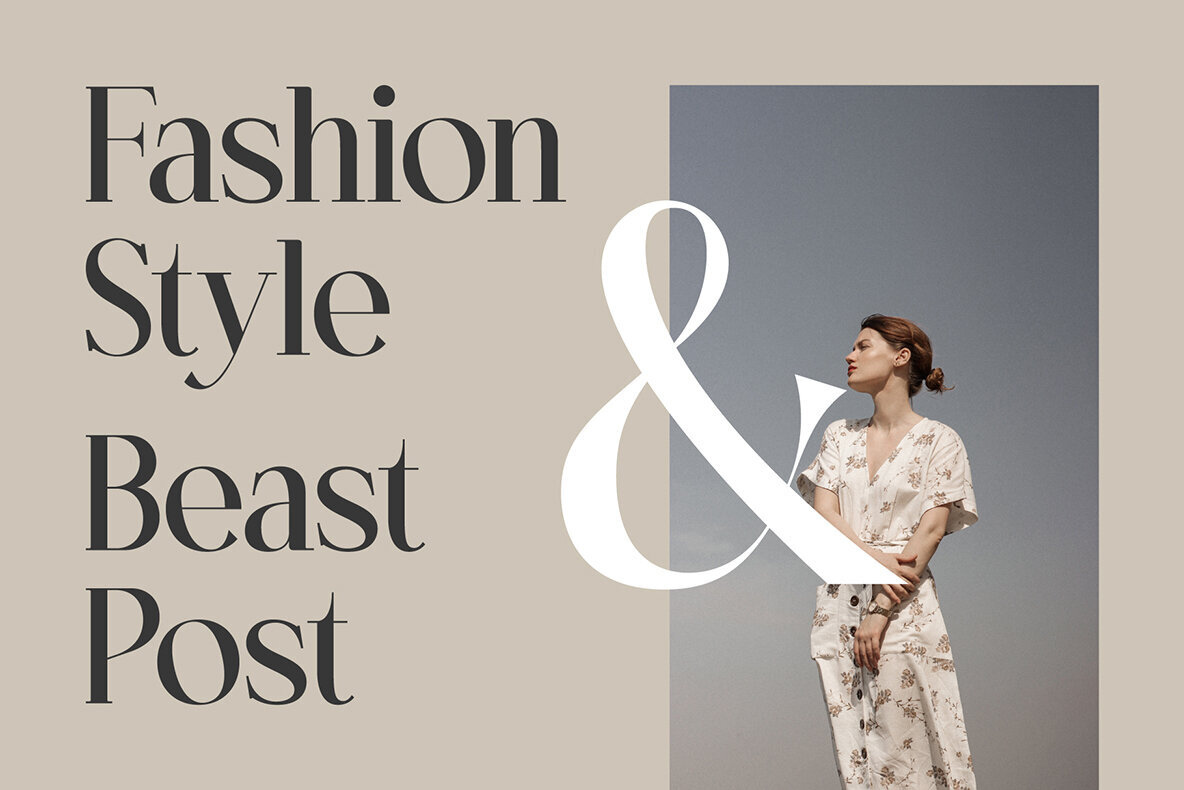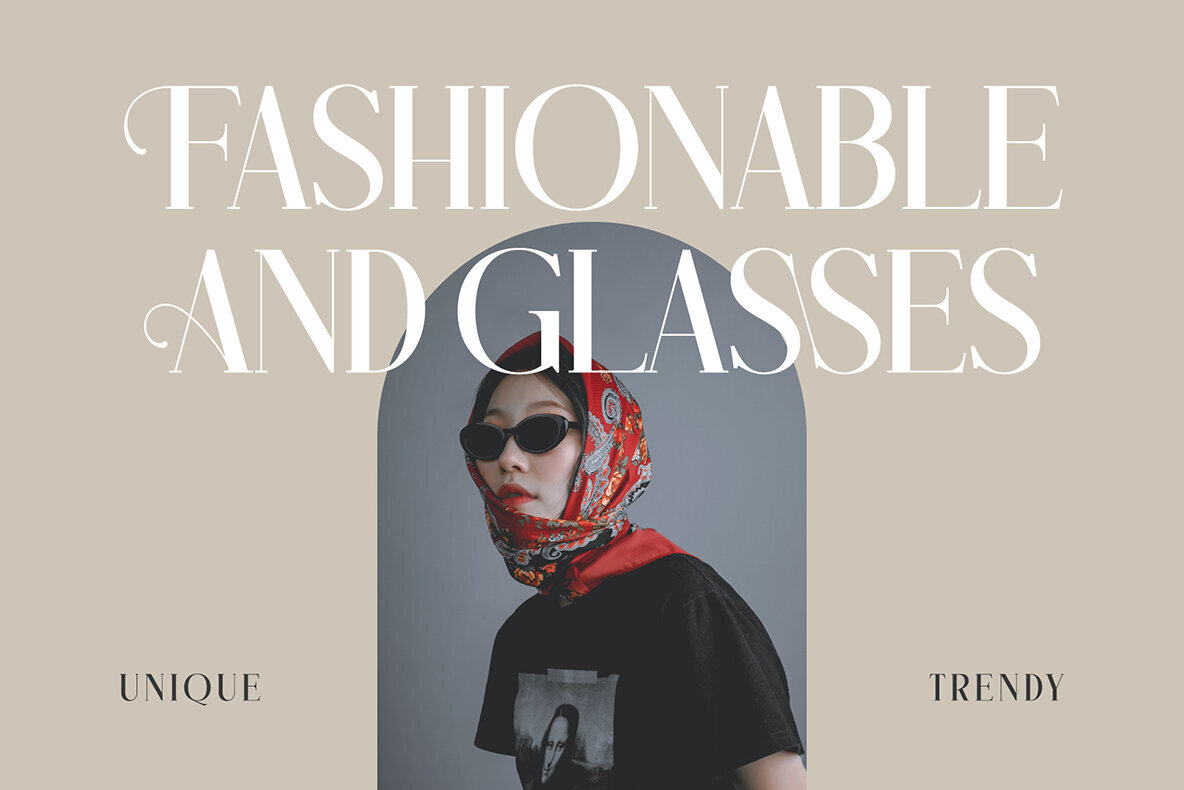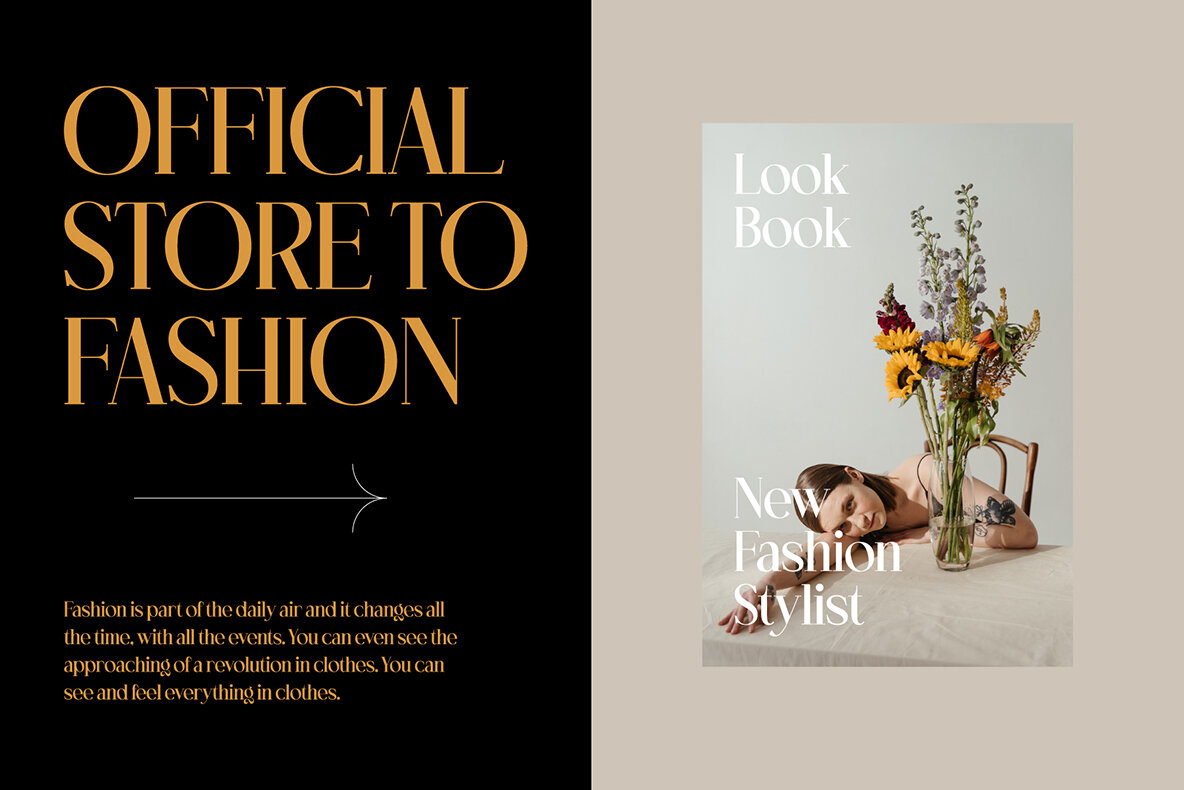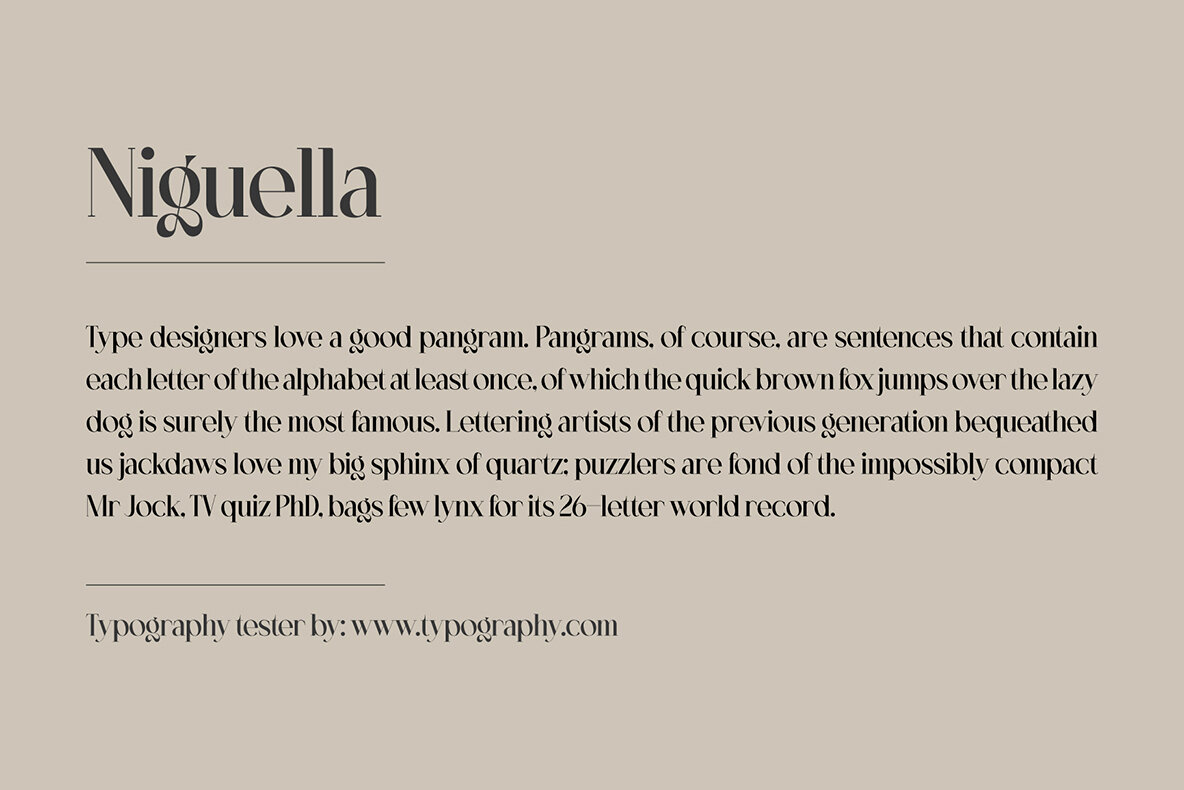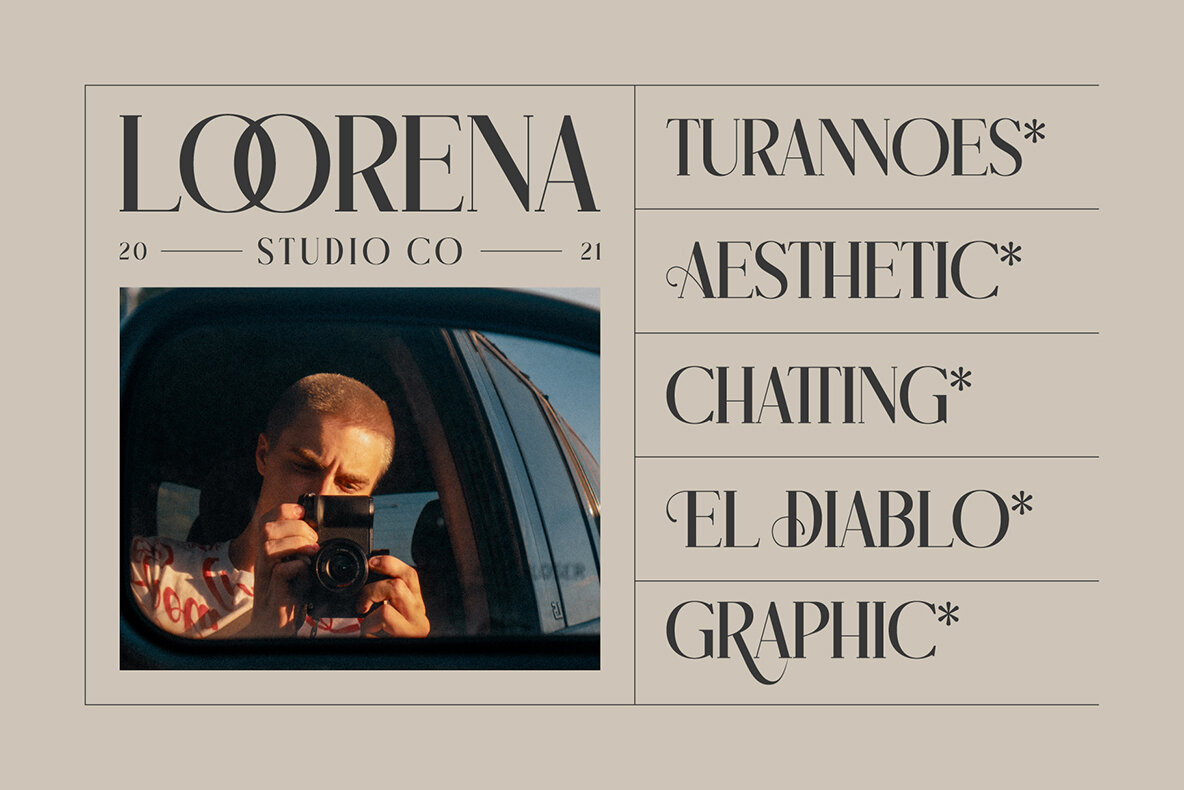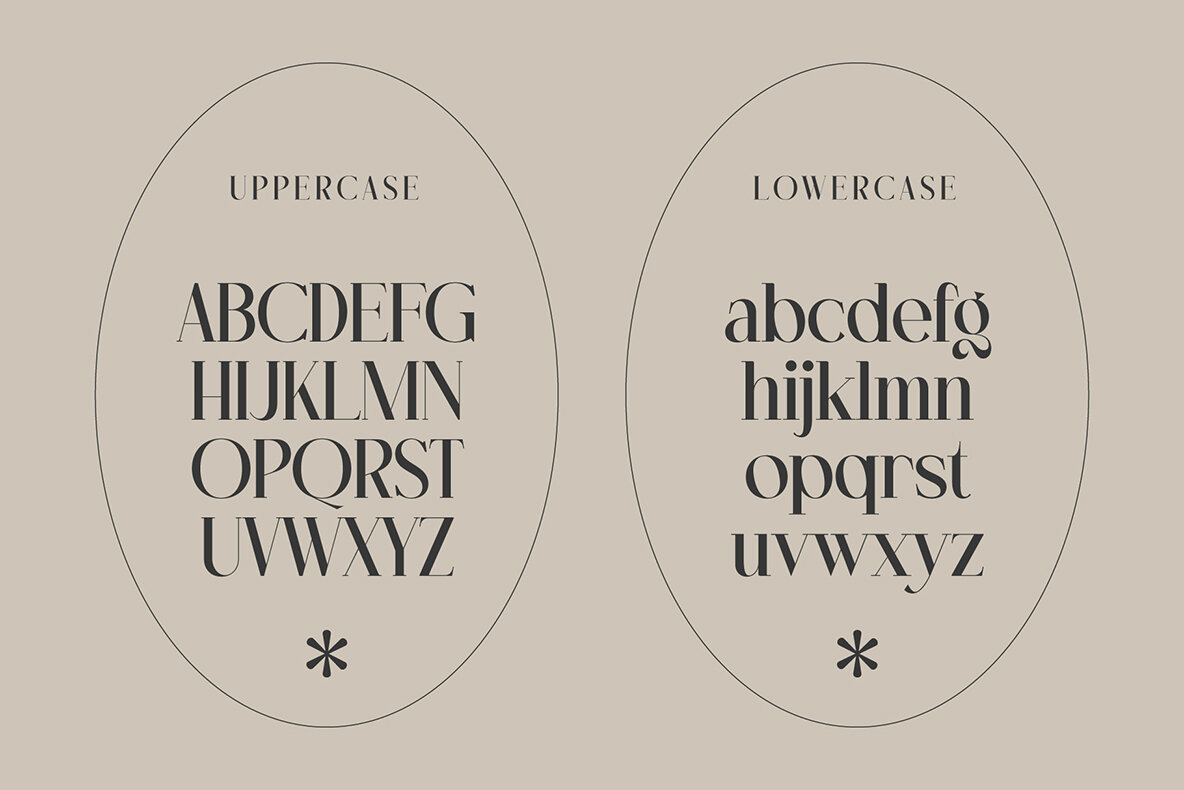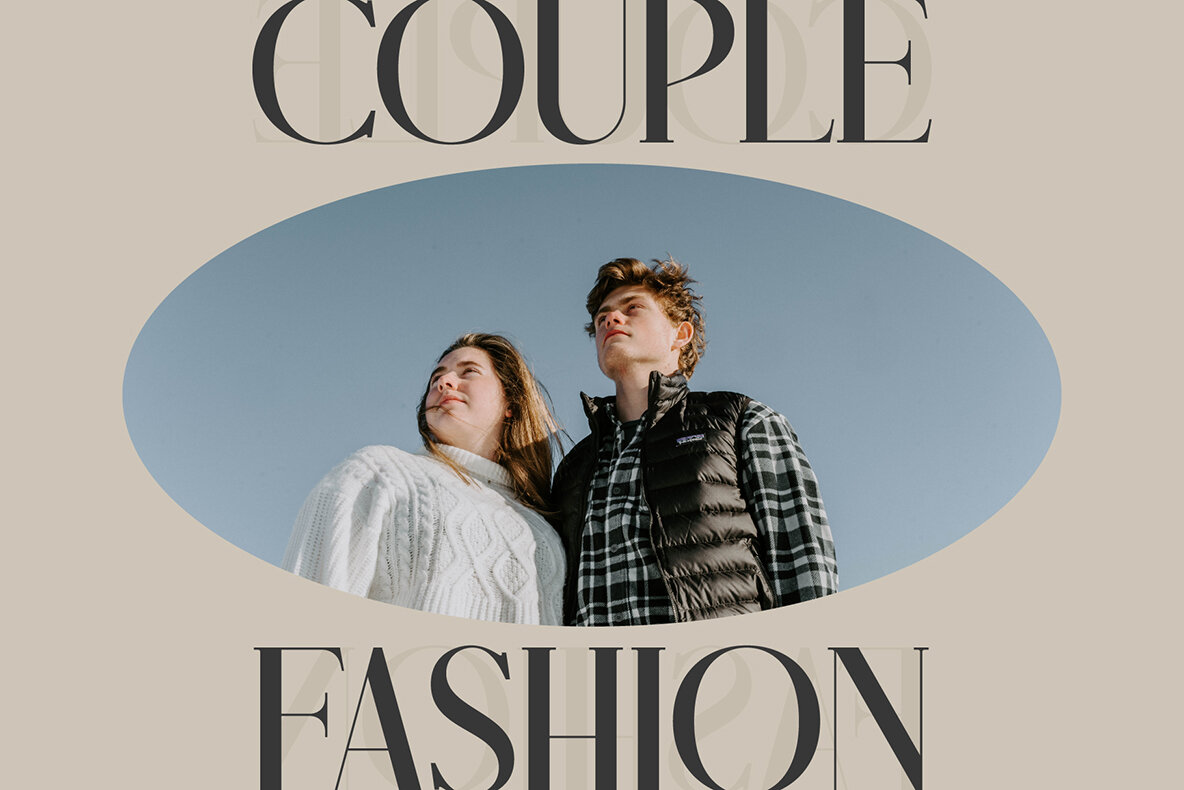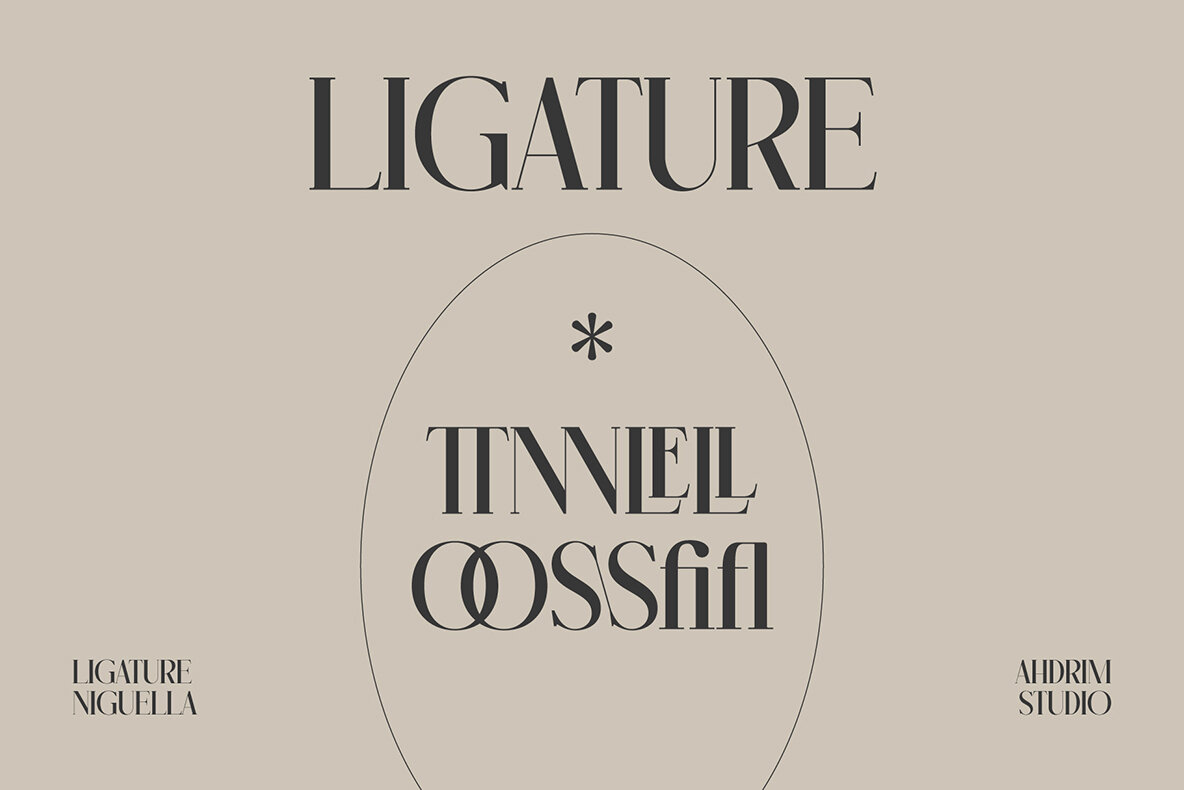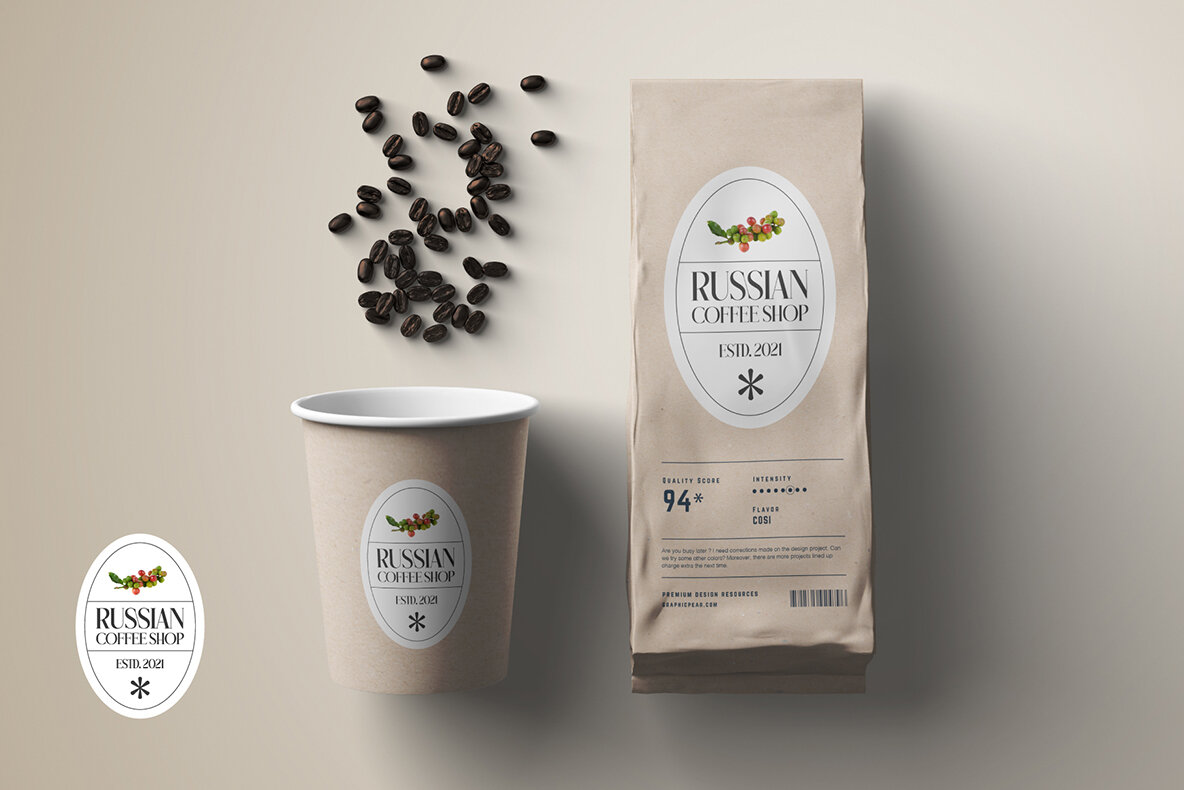
Niguella Font
Niguella Regular
Niguella is a serif-style font that resonates with the charm of yesteryear's athletic designs. This versatile typeface is perfect for holiday-themed projects, eye-catching t-shirt graphics, and much more.